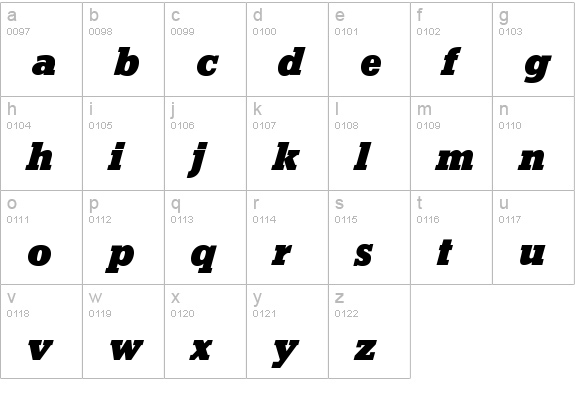
Stymie Black Italic is a maximum-weight, dramatic, italic variant in the Stymie typeface family \xE2\x80\x94 well suited to maximum-impact headlines, posters, and packaging.
Stymie Black Italic font is a sleek and stylish typeface that exudes sophistication and elegance. Its bold strokes and slanted design make it perfect for creating eye-catching headlines and attention-grabbing text. The italicized characters add a touch of flair and personality to any design project. This versatile font is ideal for a wide range of applications, from editorial designs to branding materials. Whether you're working on a magazine layout, advertising campaign, or website design, Stymie Black Italic font will help you make a bold statement. Best of all, Stymie Black Italic font is available for free download at FontsMarket.com. So go ahead and elevate your design projects with this stunning typeface today!